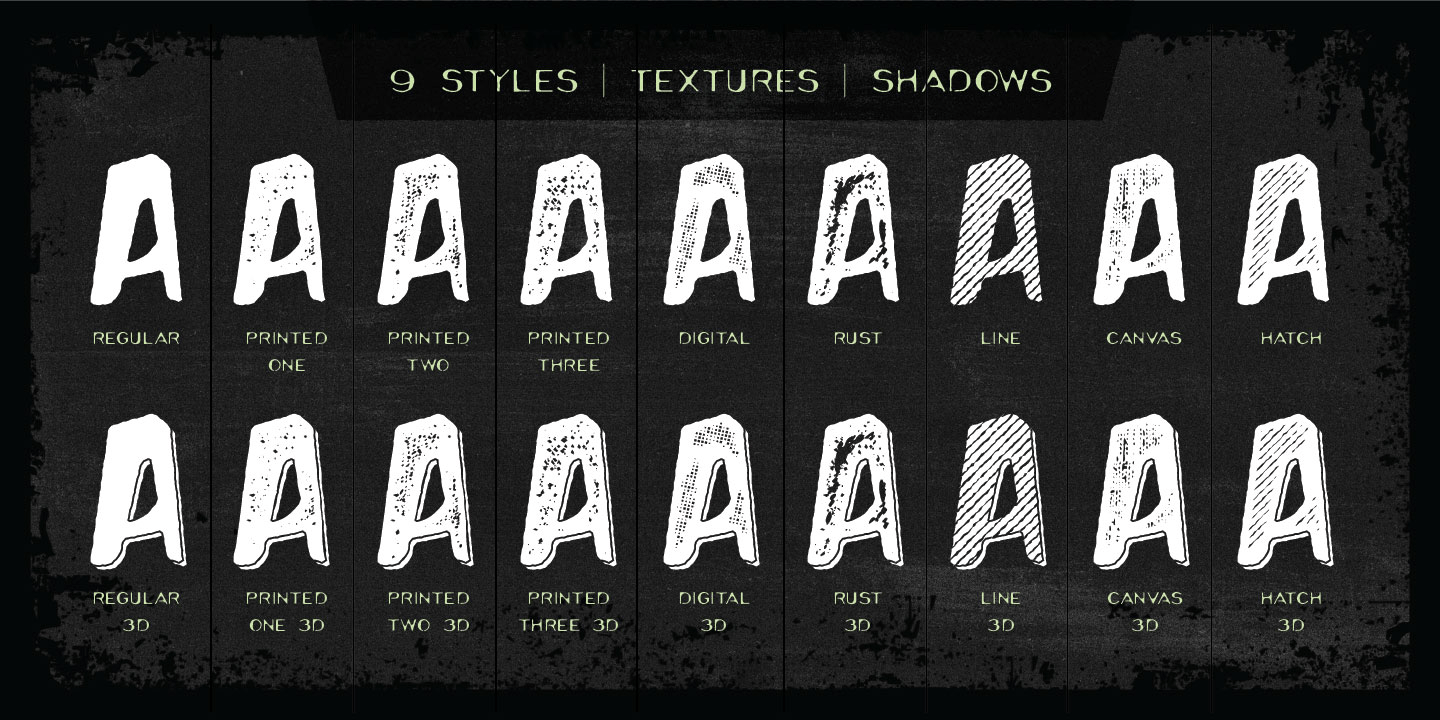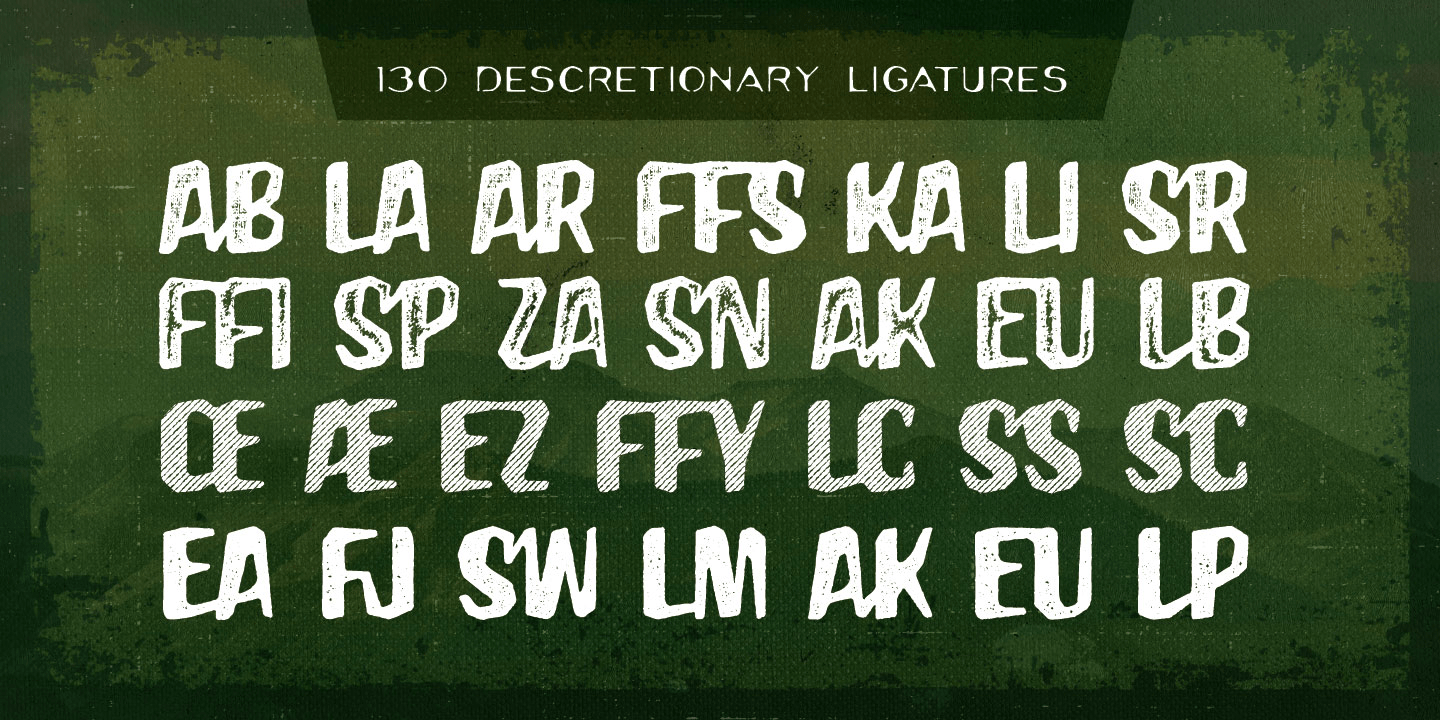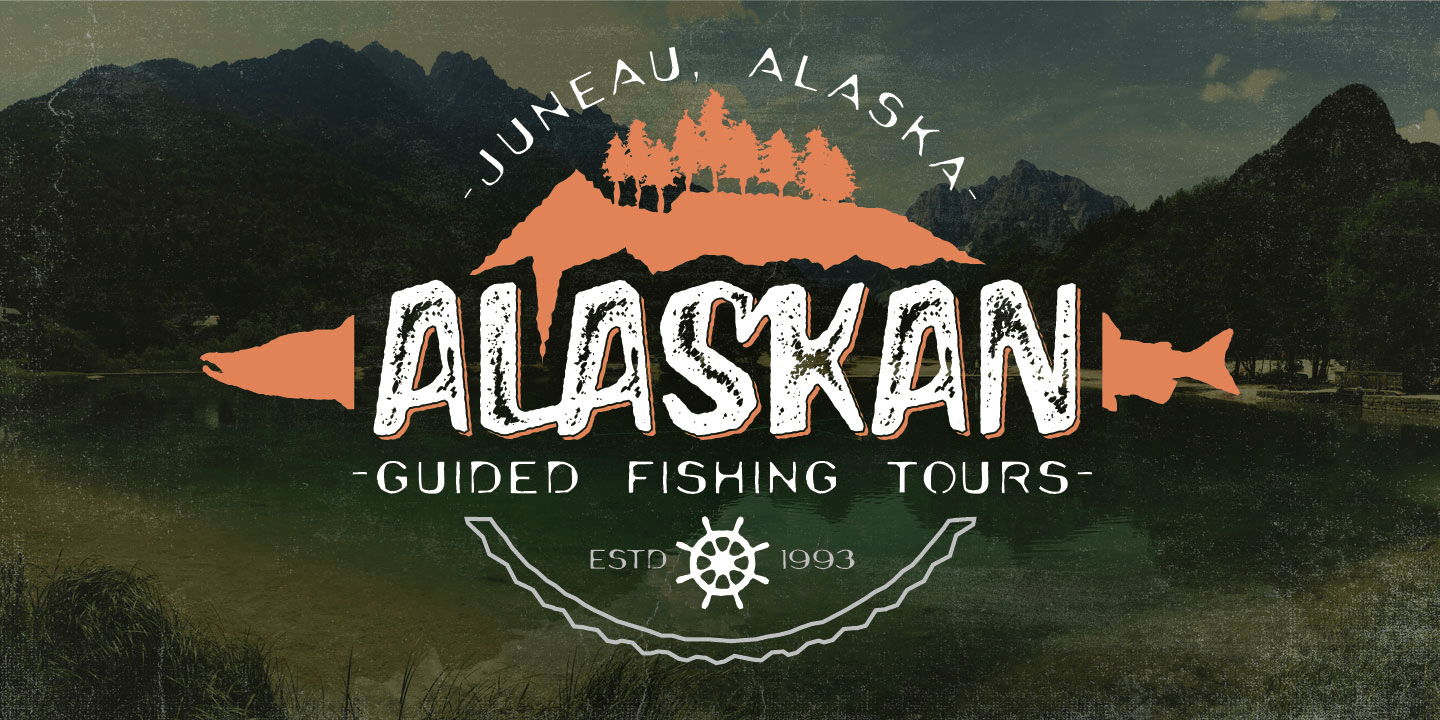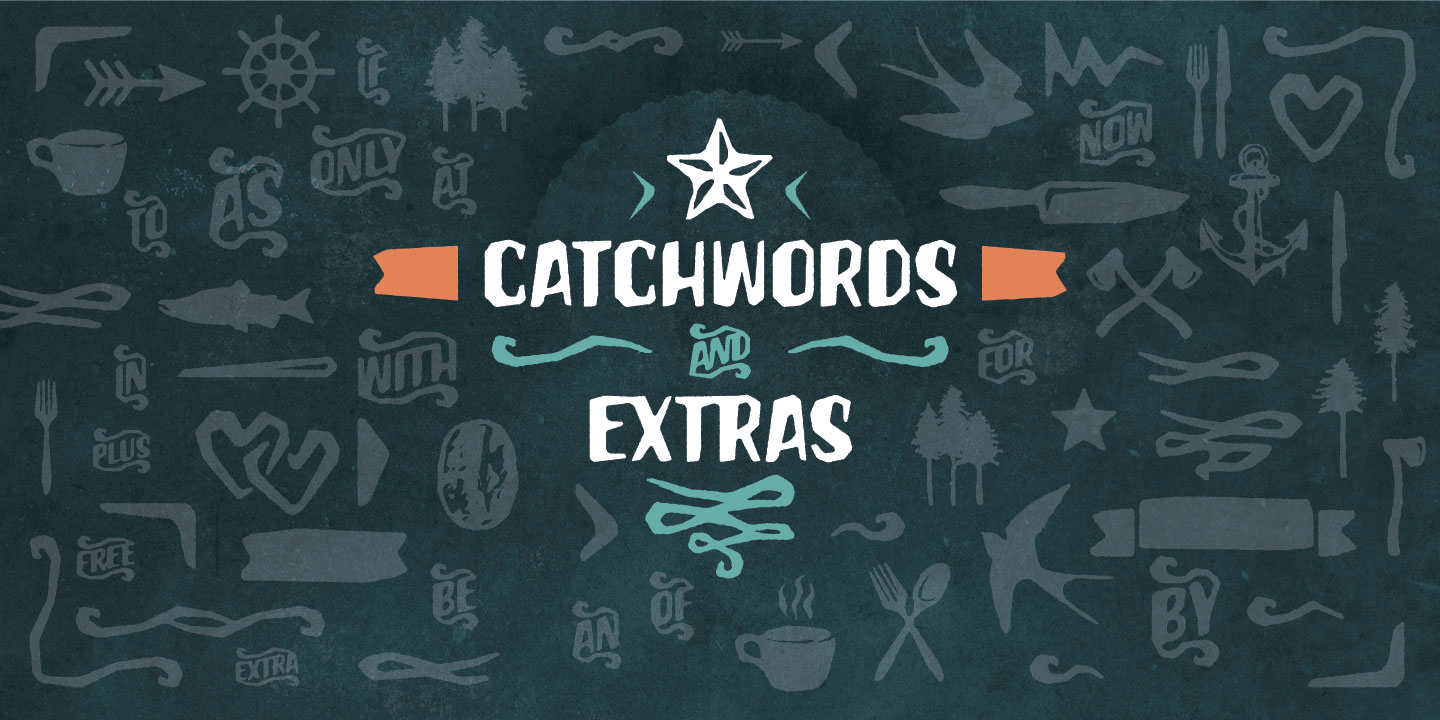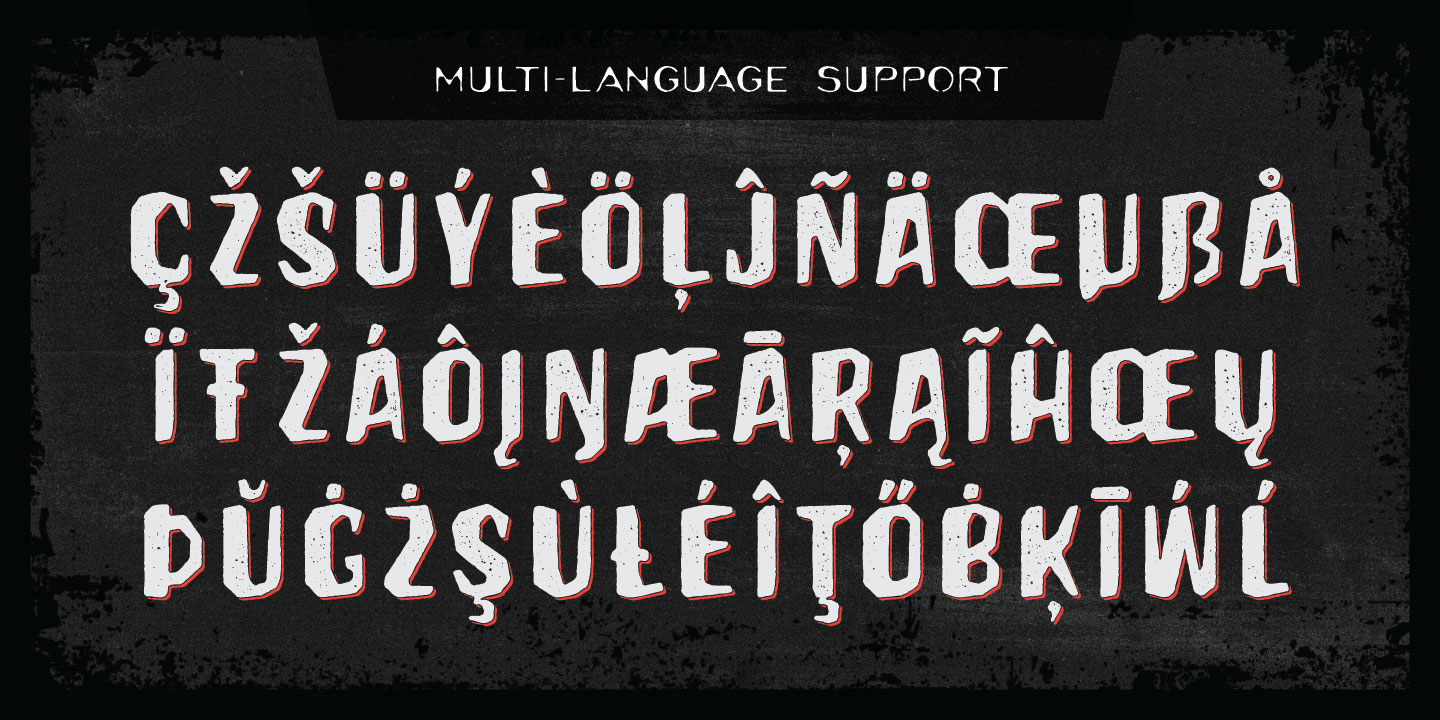
The Hanscum font family is a playful geometry and nature-inspired display family sporting plenty of distressed and letterpress style textures. With an authentic vintage look and a variety of styles, Hanscum comes with many playful faces and is packed…